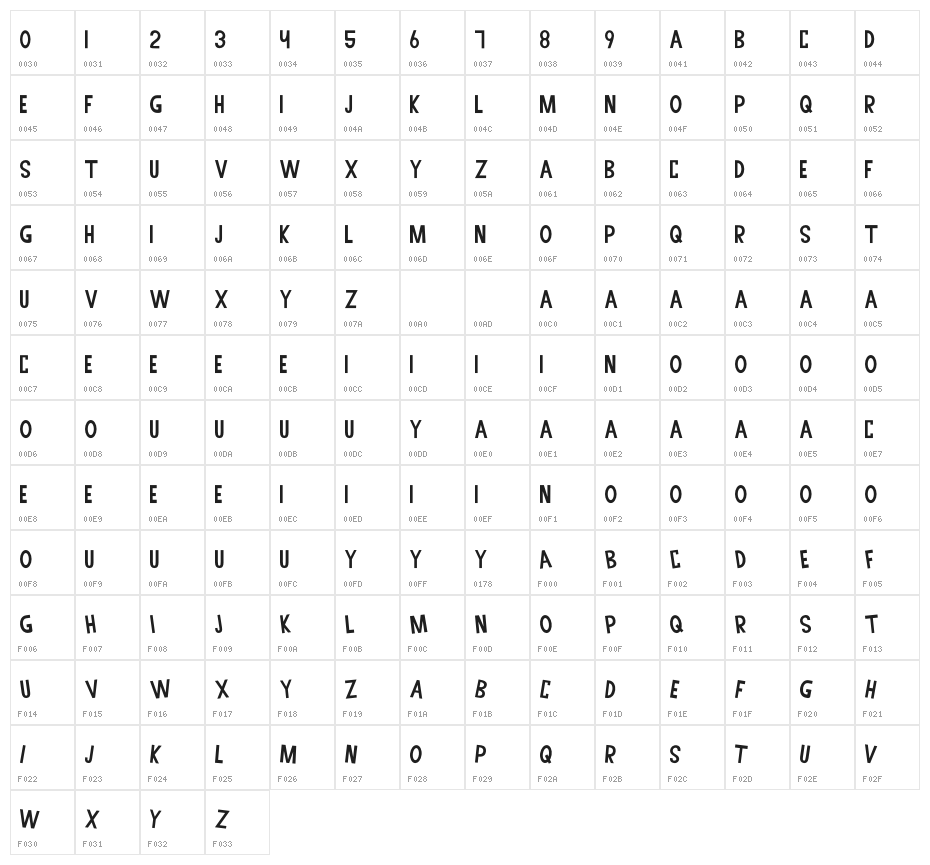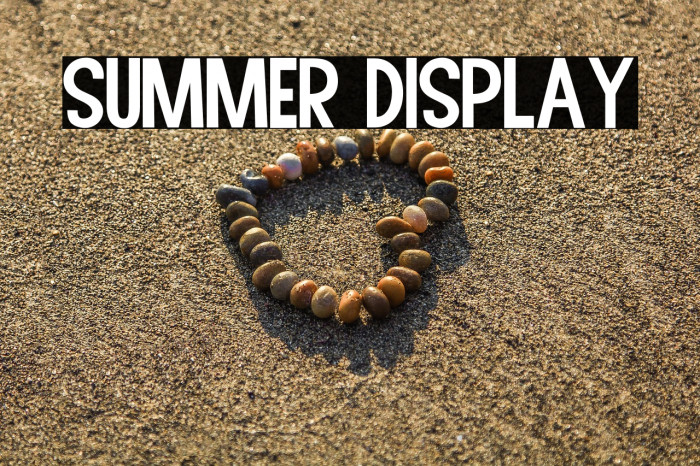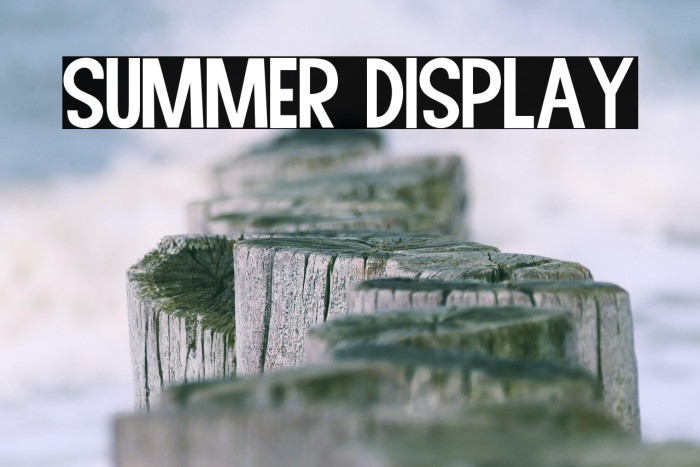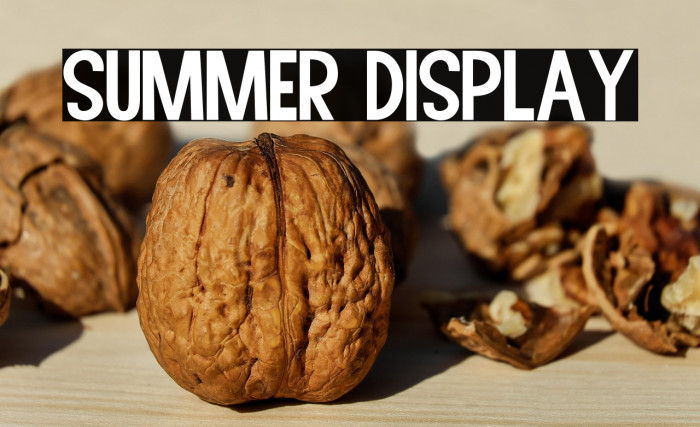
Summer Display Font
Summer Display Description
This font features a bold and striking design with a modern flair. The uppercase letters are uniform in height and width, creating a cohesive and balanced appearance. The characters have a geometric structure, with clean lines and sharp angles that convey a sense of strength and stability. The numbers are equally bold, maintaining the same geometric style as the letters. The overall look is both contemporary and versatile, making it suitable for a variety of design applications. The font's boldness ensures it stands out, while its clean lines keep it legible and easy to read.
| Proposed Projects | Ideal for headlines, posters, branding, and advertising where a strong visual impact is needed. |